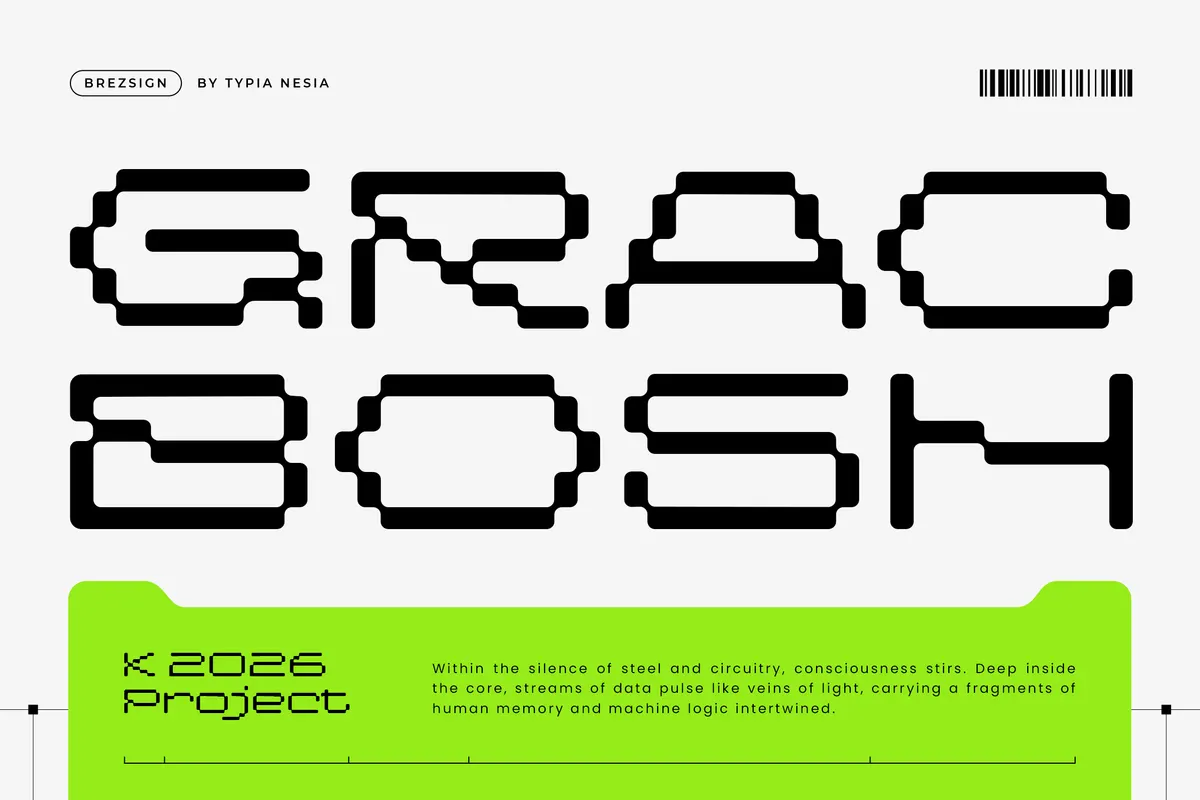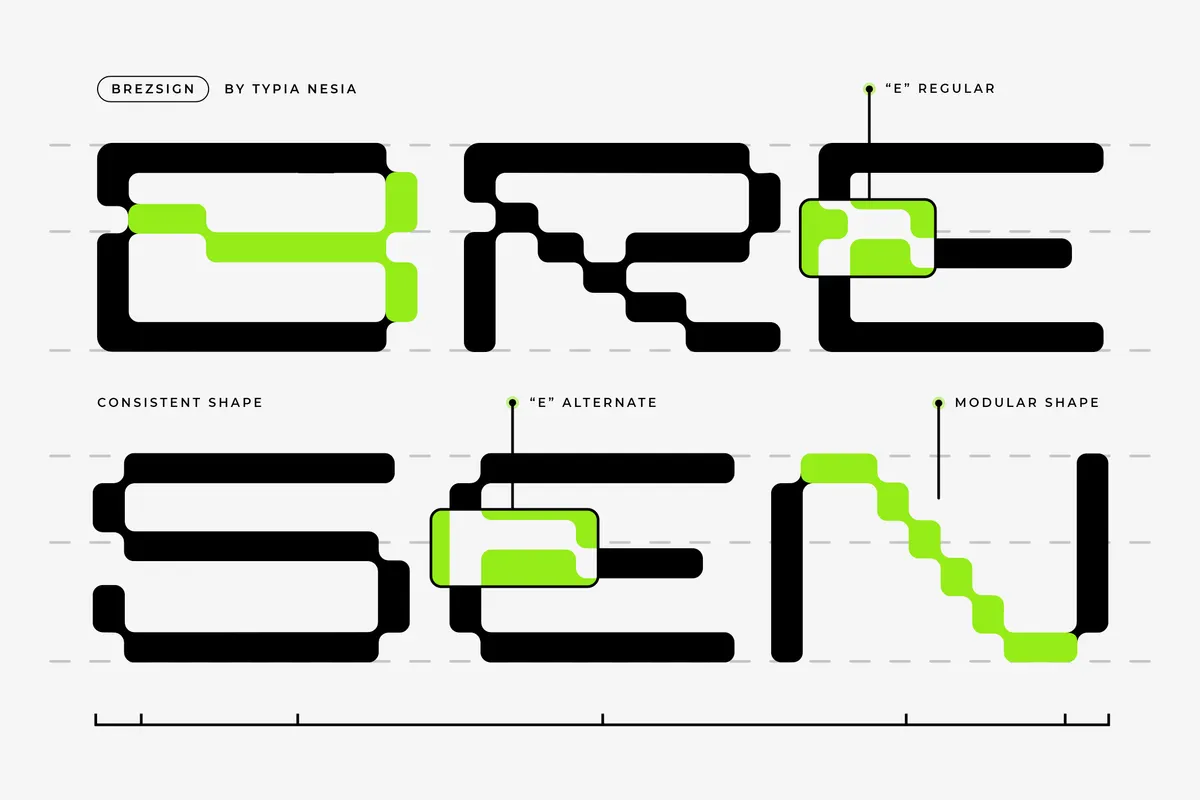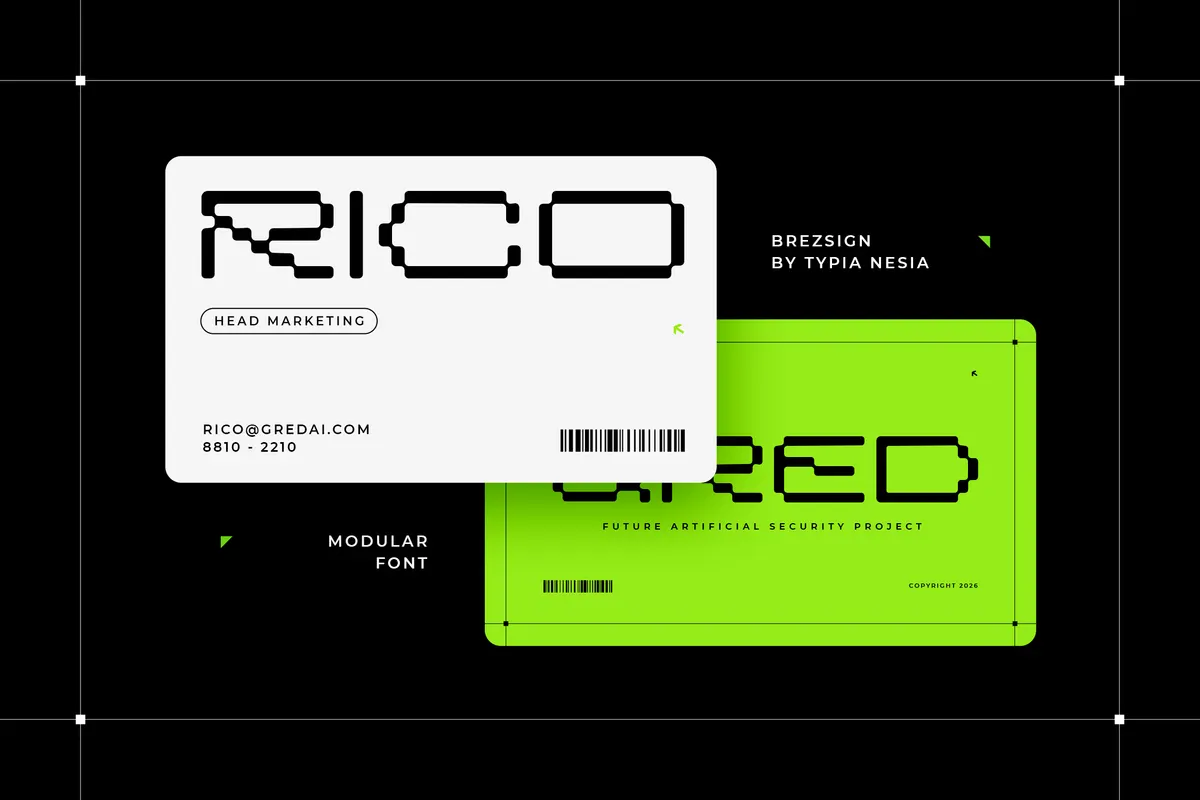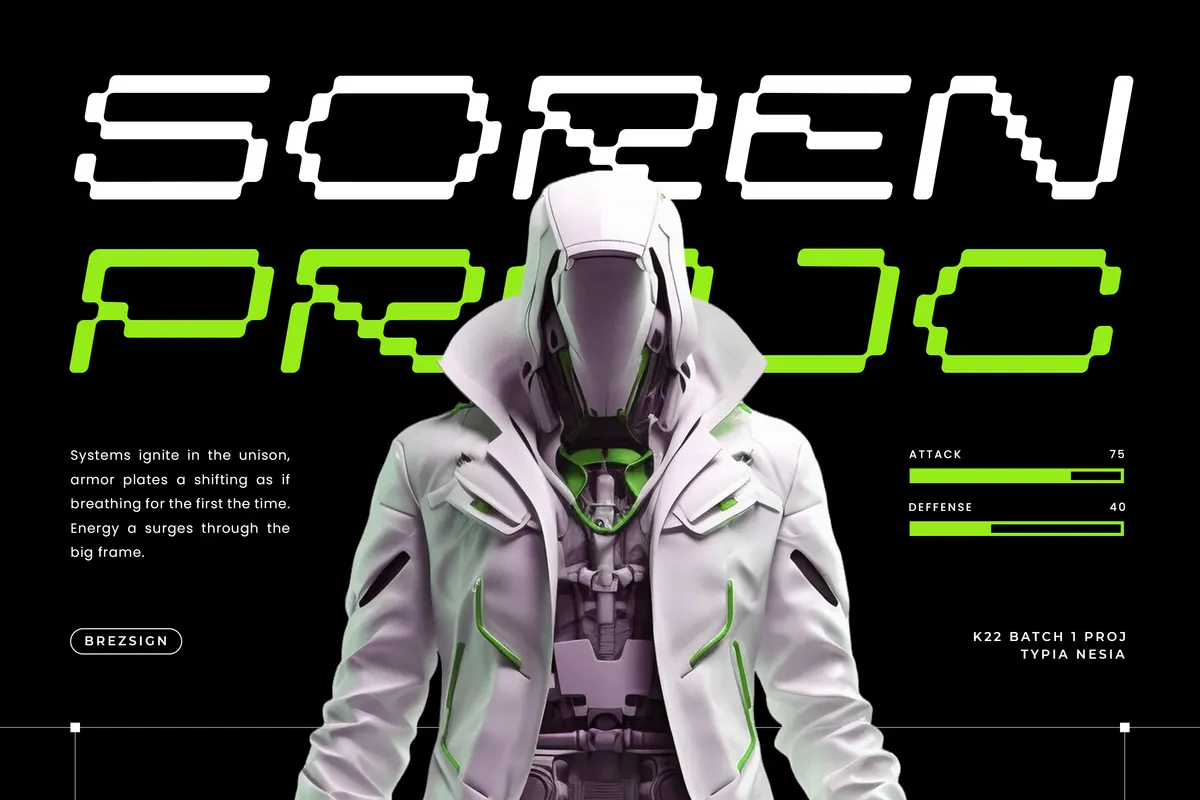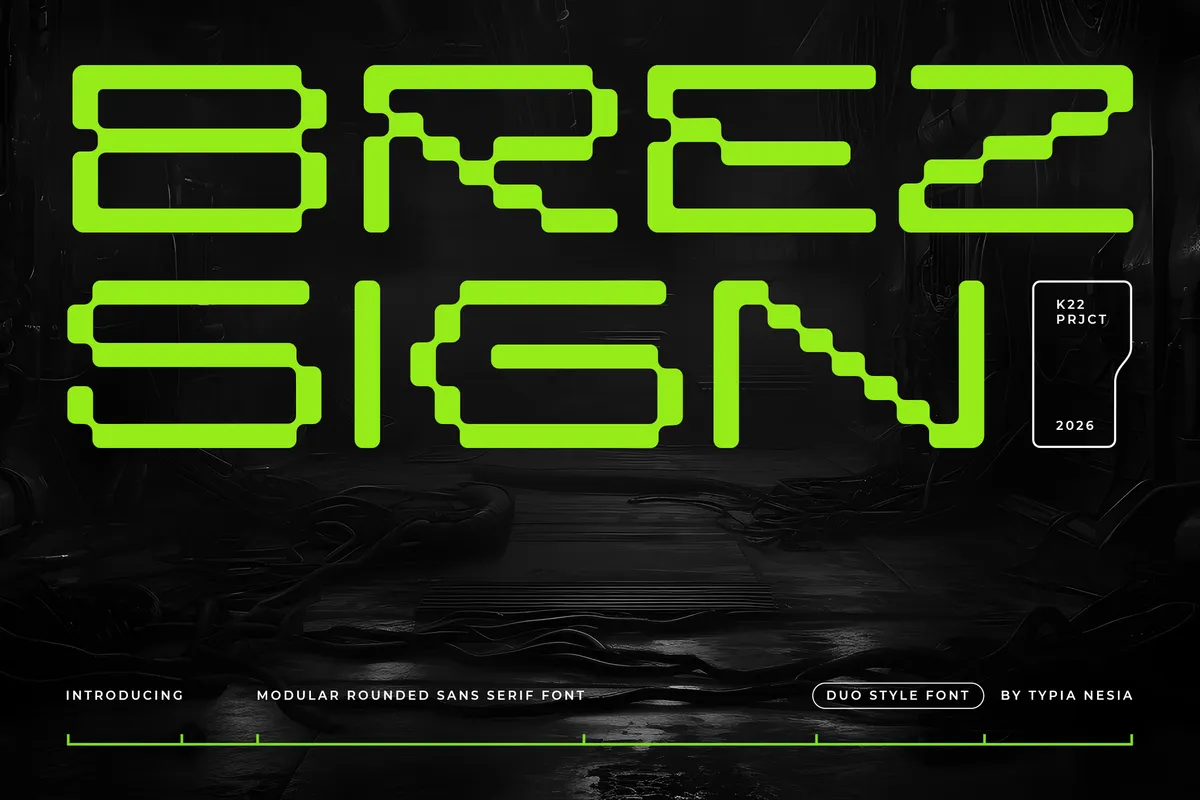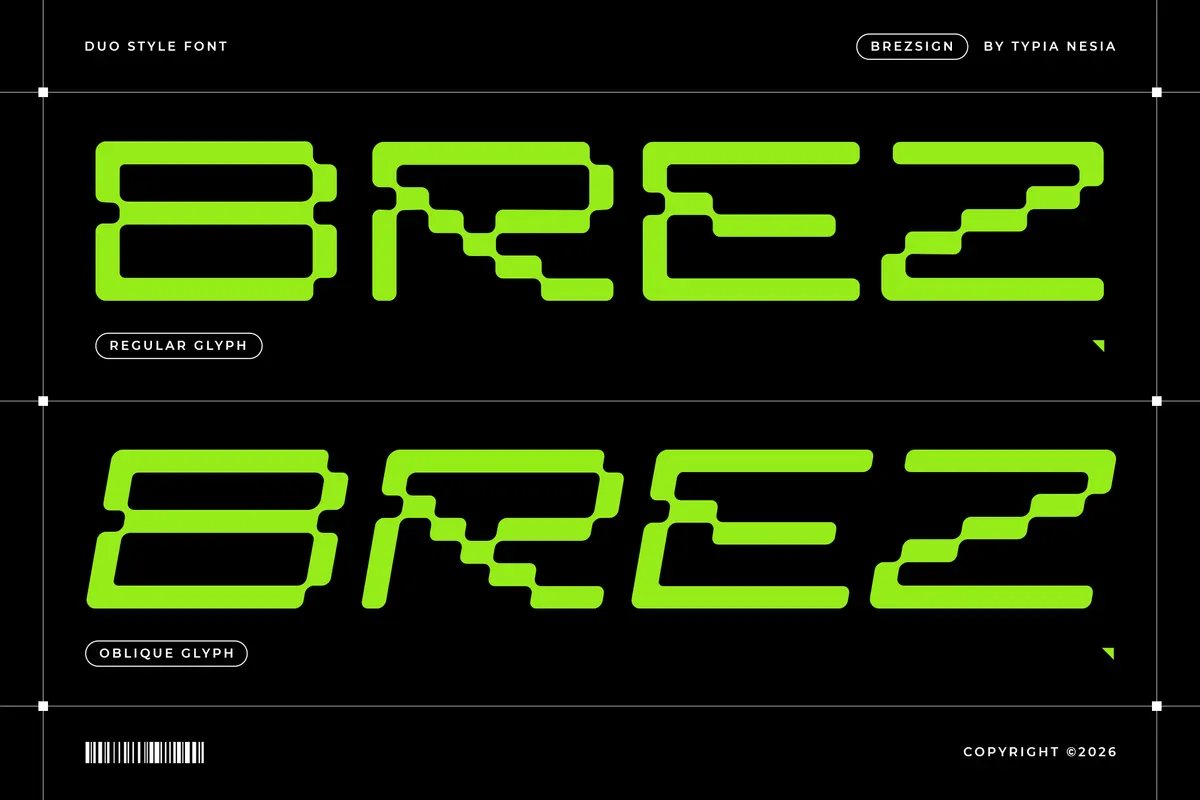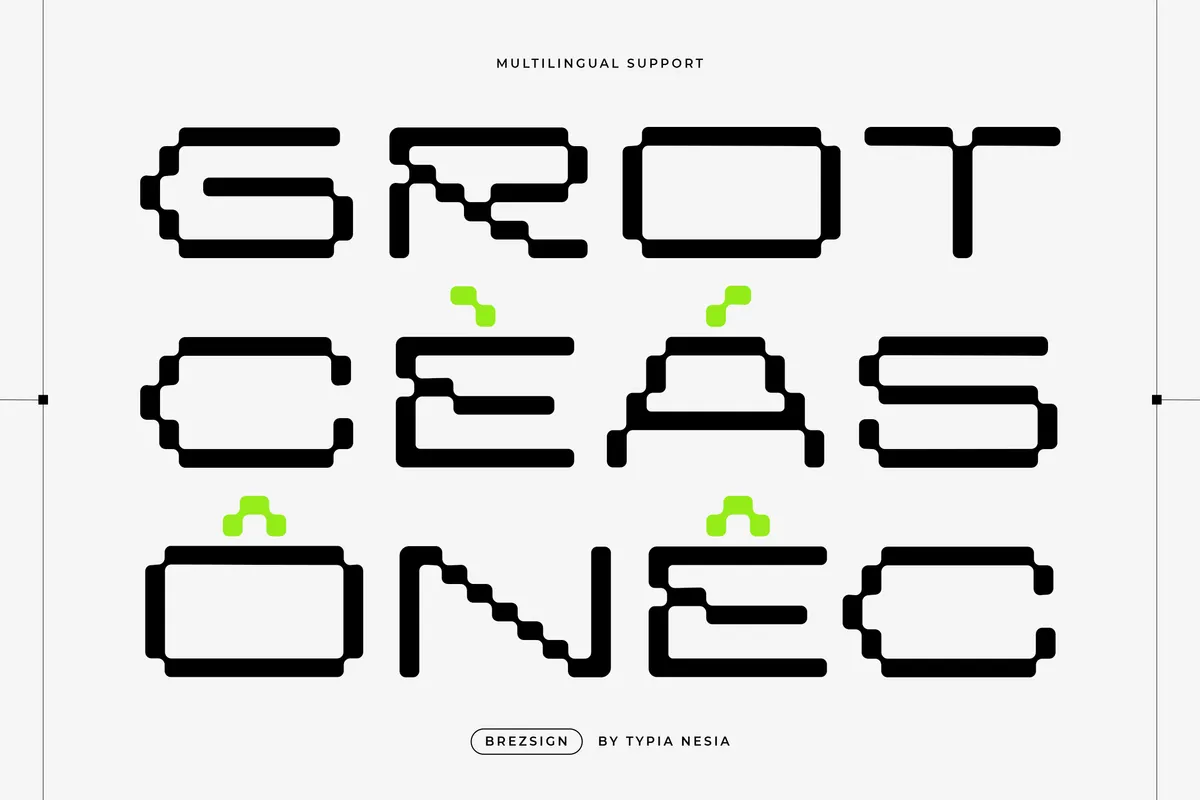
Brezsign - Futuristic Pixel Sans Font
Oblique
Brezsign
Brezsign builds a bold, modular sans with pixel-cut notches at every joint, closer to a sci-fi HUD readout than a general display face. Regular and Oblique make up the duo, and uppercase and lowercase are both fully drawn with distinct letterforms. Stylistic alternates swap in a second form for 21 letters, including a second E, all reachable through the OpenType panel.
Use it for gaming brands, tech ventures, futuristic branding, and sci-fi visual identities.
- Uppercase & lowercase;
- Numerals, punctuation & symbols;
- Regular and Oblique styles;
- 20 discretionary ligatures, stylistic alternates on select characters;